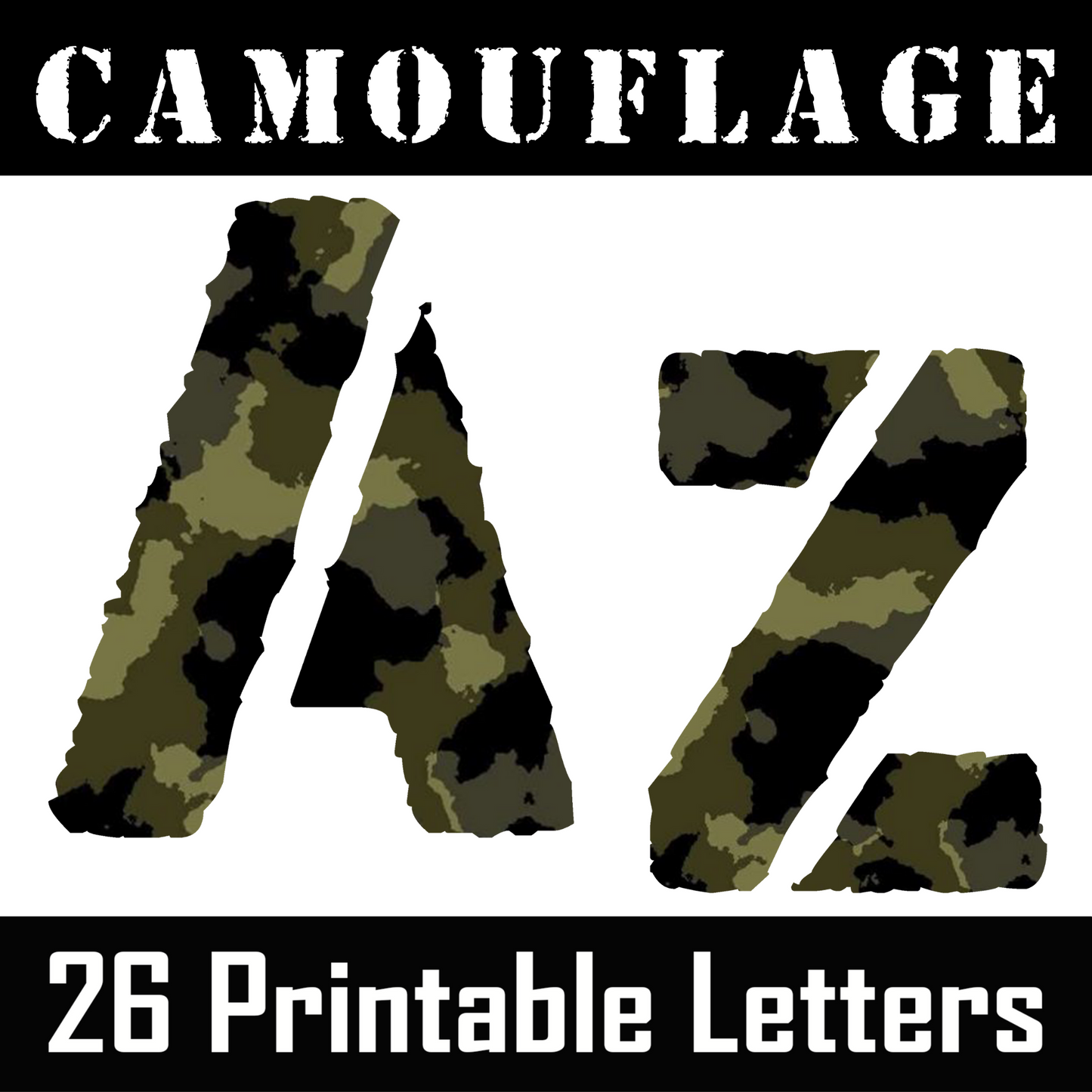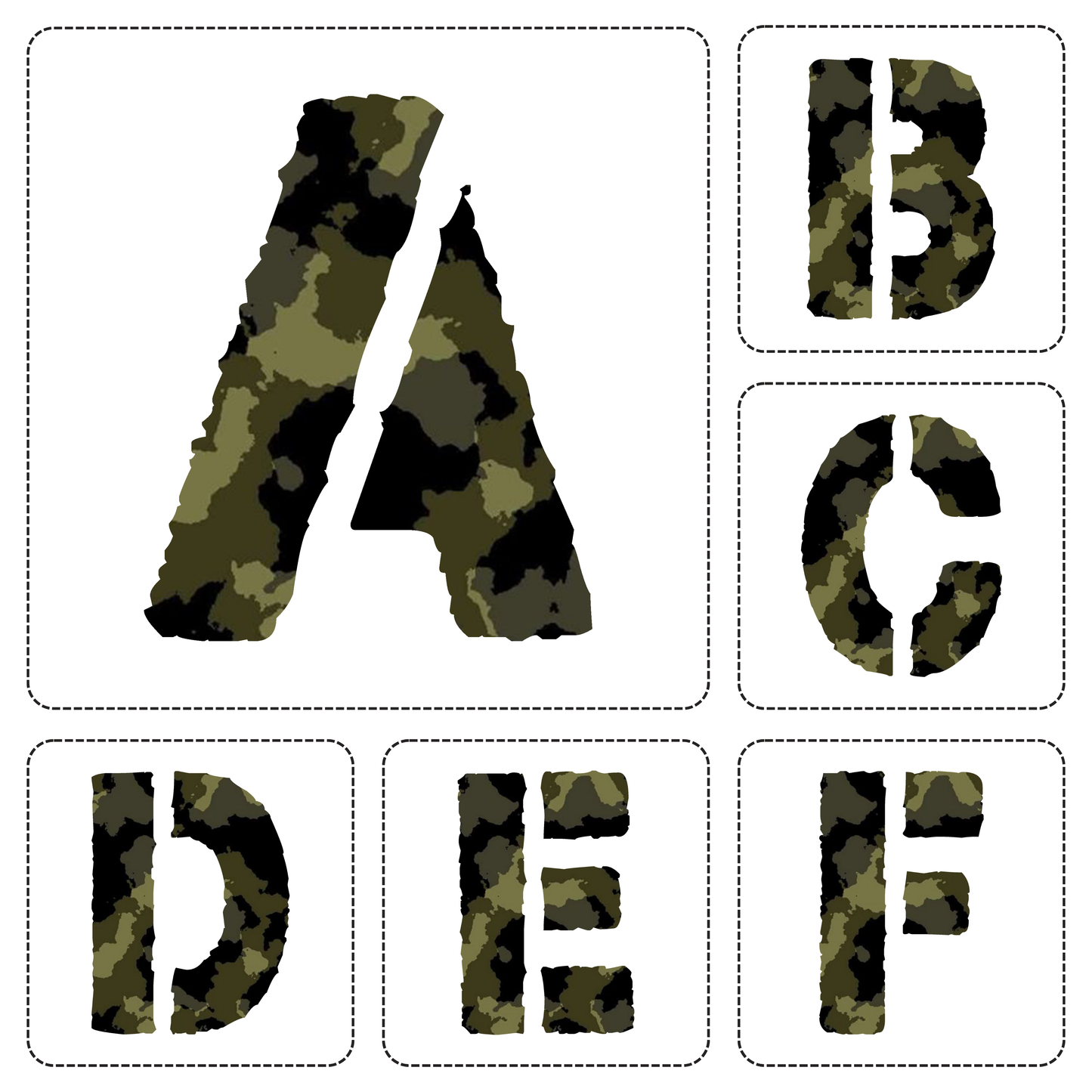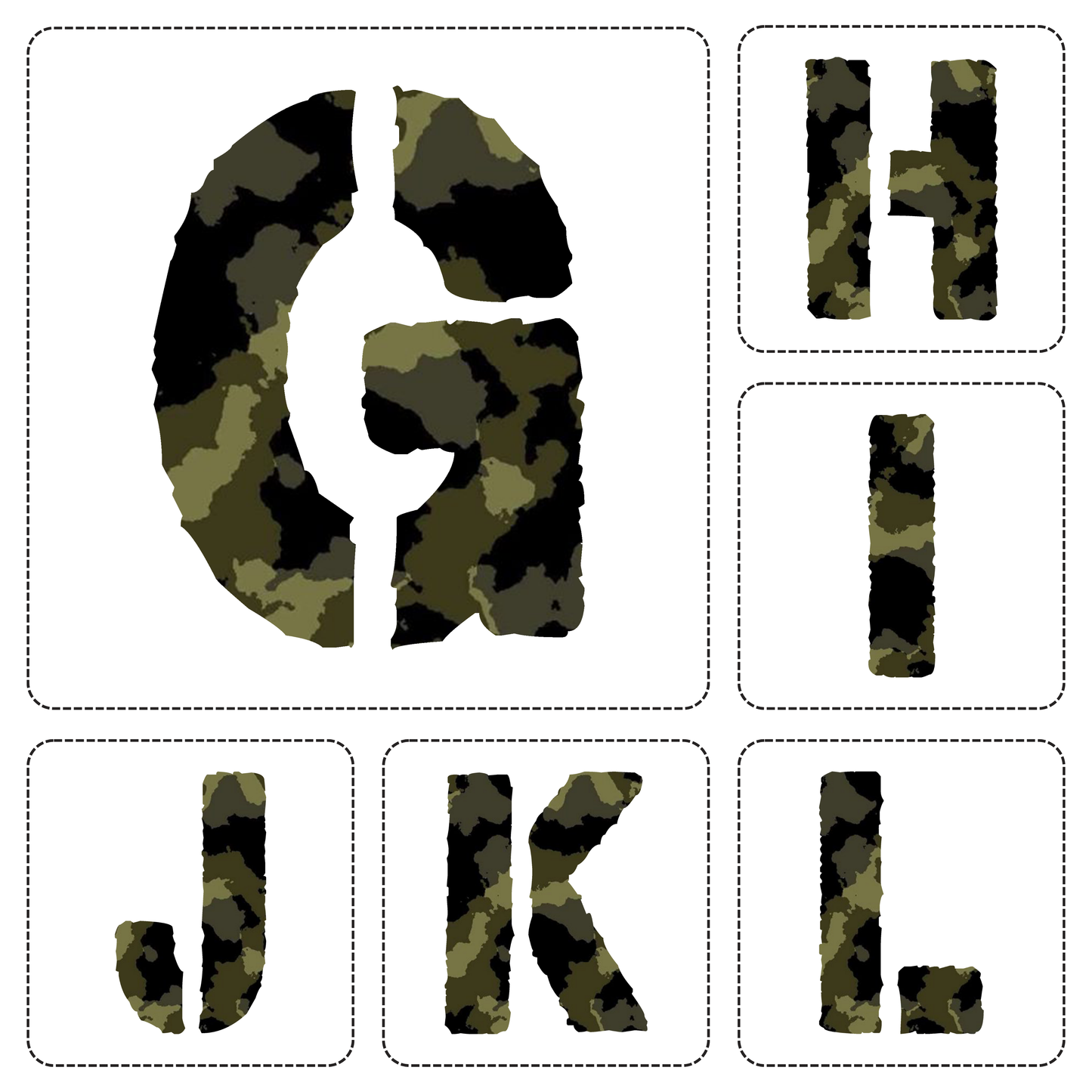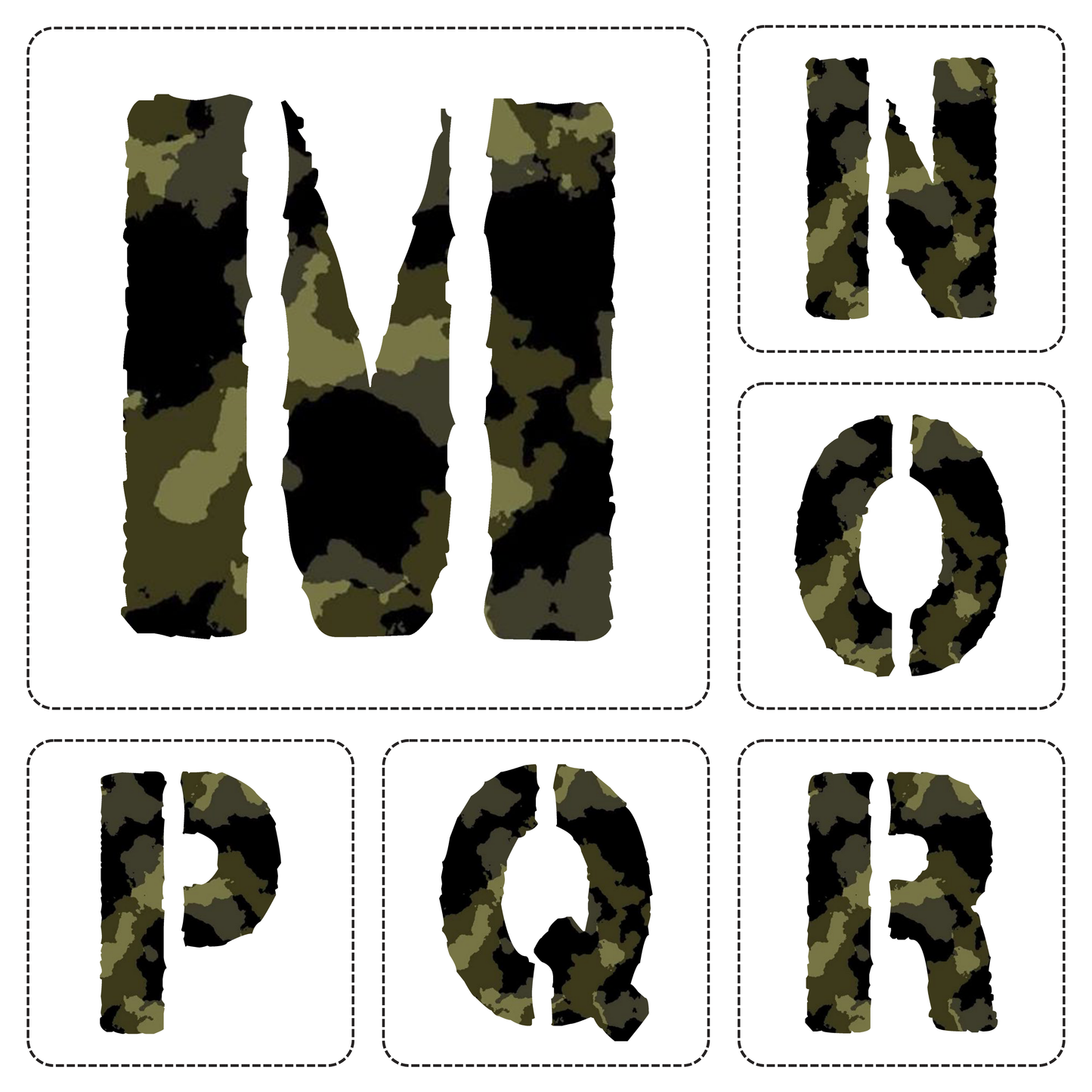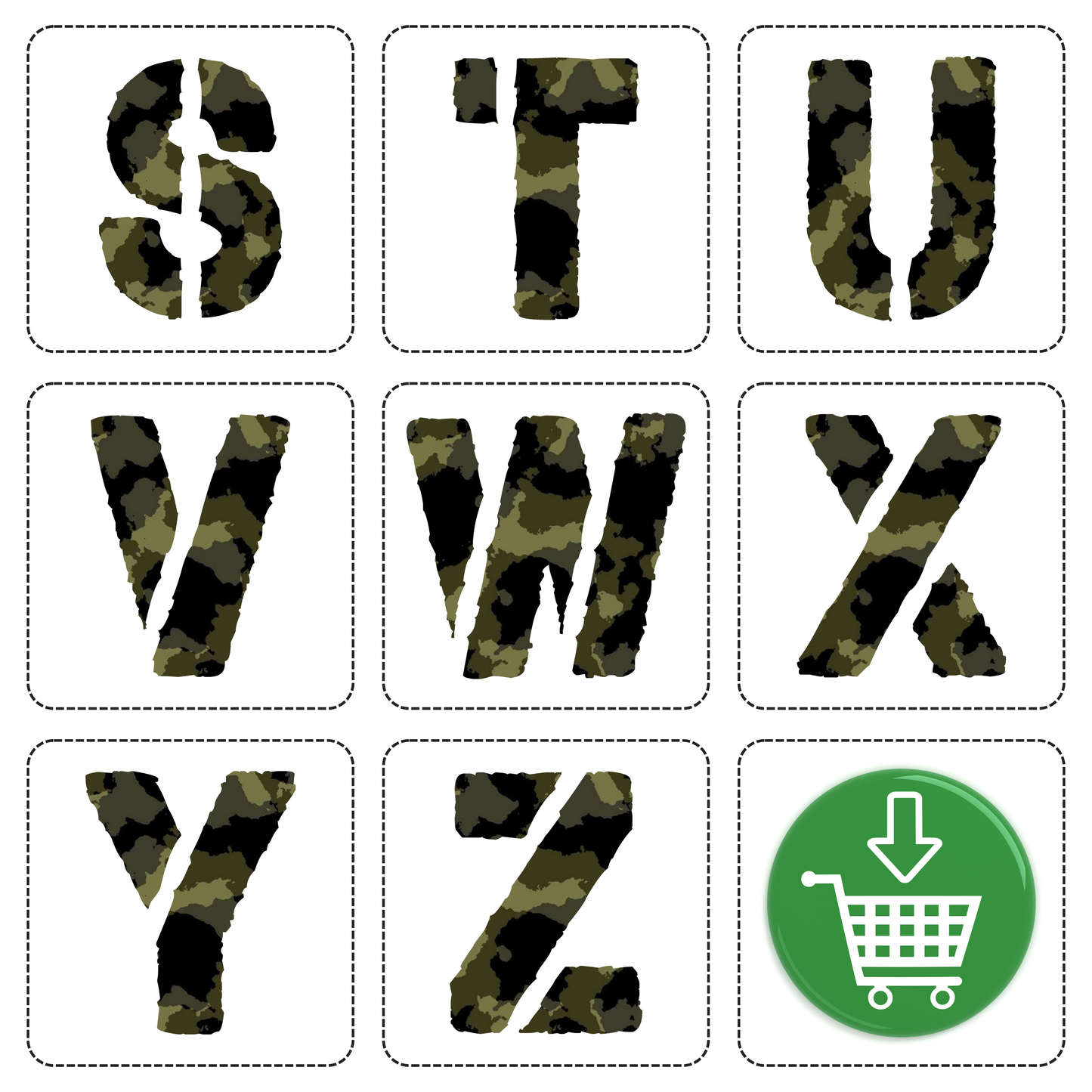
Army Camouflage Alphabet A–Z
Deploy creativity with this full set of Army-style alphabet letters! Each letter from A to Z is designed in a bold stencil font with authentic camouflage textures—perfect for military-themed parties, classroom decor, homeschool printables, and rugged DIY crafts.
• ✅ Camouflage pattern with stencil-style font
🎯 Perfect For
• Army birthday parties
• Classroom bulletin boards
• Alphabet flashcards
• Scrapbooking & DIY crafts
• Homeschool activities
• Military-themed worksheets